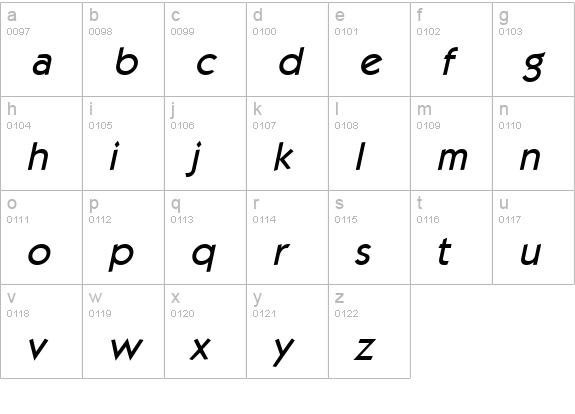
Kabob Italic is a distinctive, italic variant in the Kabob typeface family \xE2\x80\x94 well suited to design and typography projects.
Kabob Italic font is a stunning display of elegance and sophistication. With its graceful curves and stylish slant, this font brings a touch of refined beauty to any design project. The italicized letters add a sense of movement and fluidity, making it perfect for capturing attention and creating a memorable impact. But what makes Kabob Italic font even more remarkable is that it is available for free! That's right, this exquisite font can be downloaded at no cost from FontsMarket.com. Whether you're a professional designer looking to add a touch of class to your work or a casual user wanting to elevate your personal projects, Kabob Italic font is the perfect choice. With its versatile nature, Kabob Italic font is suitable for a wide range of applications. From logo designs to headlines, packaging to invitations, this font effortlessly adapts to any design context. Its clean and legible characters ensure readability while still maintaining a sense of uniqueness and charm. Kabob Italic font is a true gem in the world of typography. Its free availability allows anyone to access its beauty and utilize its potential. So why wait? Visit FontsMarket.com today and download Kabob Italic font to add a touch of elegance and sophistication to your designs.